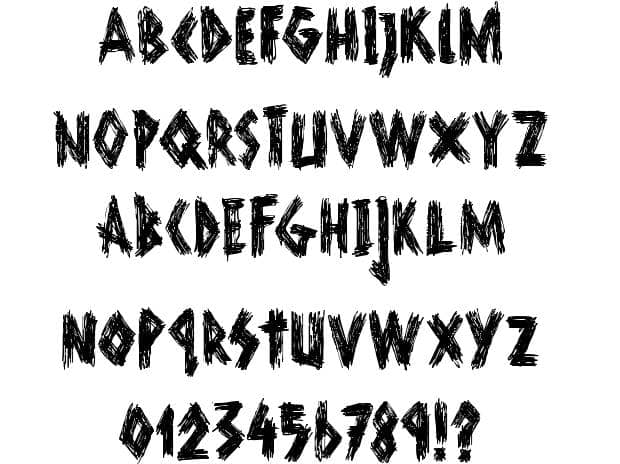
DK Scurvy Dog font
David Kerkhoff designed DK Scurvy Dog, a high-quality Disney font, on September 15, 2018.
The DK Scurvy Dog typeface is a premium Disney font. The typeface can be downloaded for free and used for personal purposes. All uppercase and lowercase letters and a few special characters are includes in the free version. TrueType and OpenType fonts are both available. Windows, Apple/Mac, Linux, Cricut, Silhouette, and other cutting machines are all compatible with the DK Scurvy Dog font. This lovely font is categorise as a pirate typeface, a Disney typeface, a grotesque font, and so on. Several fonts are identical with DK Scurvy Dog font. Such as: King of pirate font, DK Ambrosine Font Free, DK Languedoc Font Free etc.
DK Scurvy Dog font is a multiplayer. This font is ideal for all kinds of whimsical designs. The font DK Scurvy Dog may make unique designs, covers, shop and store names, and logos. DK Scurvy Dog is also ideal for advertising campaigns, homeware layouts, packaging design, and as a beautiful text overlay on any backdrop image.